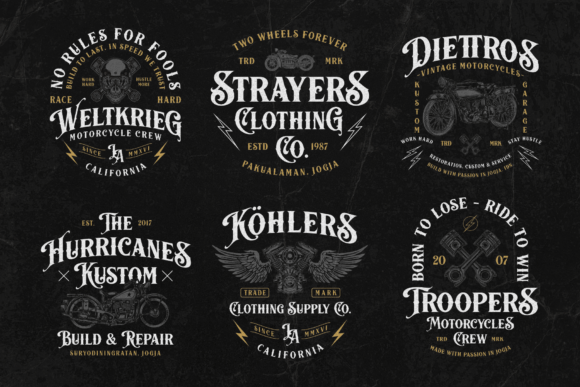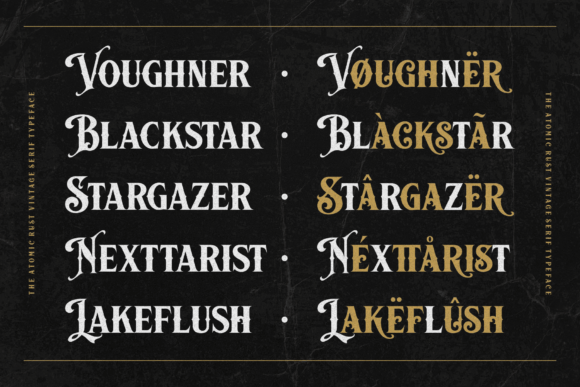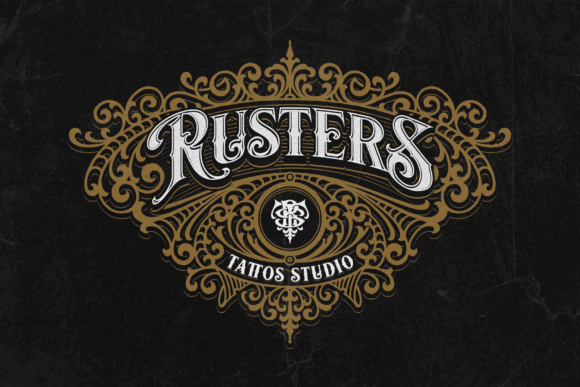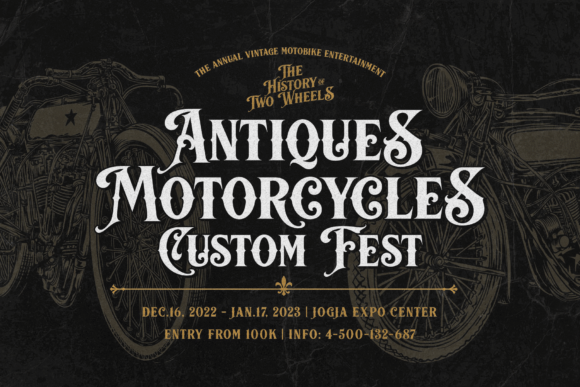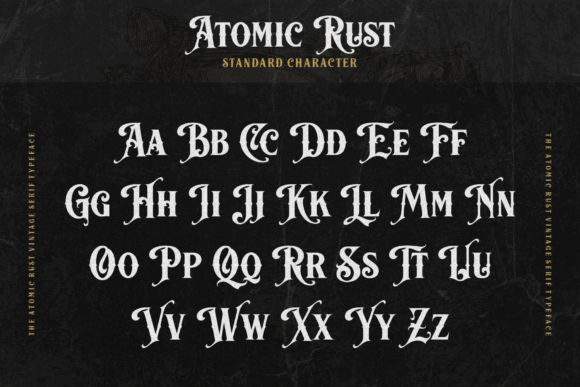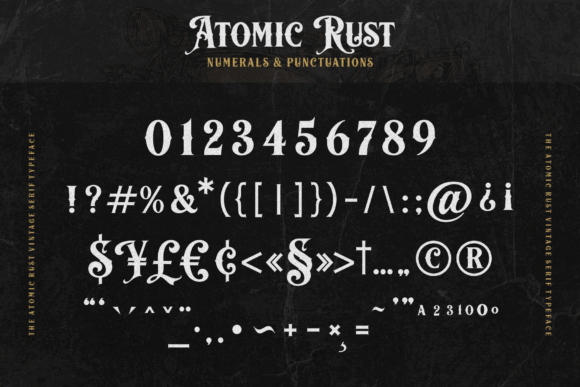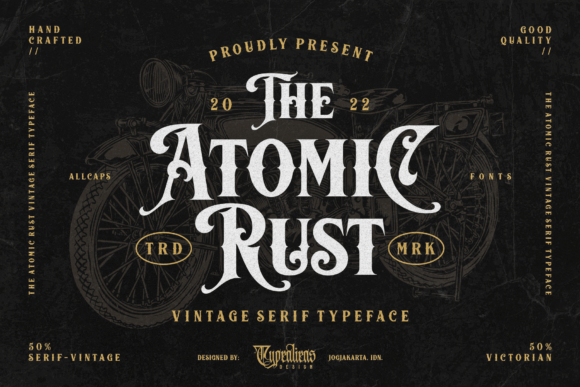
Discover the Timeless Charm of Atomic Rust Font: Elevate Your Designs with a Vintage Victorian Twist
In the realm of typography, certain fonts stand out for their unique ability to transport us to another era. Atomic Rust Font is one such typeface that embodies the essence of the Victorian era, while also catering to the needs of modern designers looking for that classic or retro vibe. This article delves into the world of Atomic Rust Font, exploring its characteristics, uses, and the creative possibilities it offers, especially for projects that scream vintage, such as garage or motorcycle-related badge designs, and even liquor labels adorned with attractive ornaments.
The Essence of Atomic Rust Font
Atomic Rust Font is a meticulously crafted typeface that draws inspiration from the Victorian era, a period known for its opulence, intricate designs, and a sense of industrial and artistic evolution. This font captures the ornate and somewhat industrial feel of that time, translating it into a versatile typeface that can be used in a variety of design projects. Its vintage charm is not just nostalgic but also highly adaptable, making it a favorite among designers who aim to infuse their work with a classic or retro aesthetic.
Key Features of Atomic Rust Font
• Victorian Era Style: The font boasts intricate details and ornate styles reminiscent of the Victorian era, making it perfect for designs that require a touch of classic elegance or industrial charm.
• Versatility: Despite its vintage roots, Atomic Rust Font is incredibly versatile. It can be used in various design projects, from digital graphics to print materials, without losing its appeal.
• Ornamentation: One of the standout features of Atomic Rust Font is its compatibility with attractive ornaments. This makes it an excellent choice for designers looking to add an extra layer of detail and sophistication to their work.
Applications of Atomic Rust Font
The applications of Atomic Rust Font are vast and varied. Its unique blend of vintage charm and versatility makes it suitable for a range of projects. Here are some of the most notable uses:
Garage or Motorcycle-Related Badge Designs
For designers working on badge designs for garages, motorcycle clubs, or related businesses, Atomic Rust Font offers a way to evoke a sense of nostalgia and ruggedness. Its vintage style can instantly lend a classic, timeless feel to badges, making them stand out with a unique character.
Liquor Labels with a Vintage Twist
Liquor labels are another area where Atomic Rust Font shines. The font’s ornate details and vintage charm can add an air of sophistication and nostalgia to liquor packaging. When combined with attractive ornaments, it can create labels that are not only eye-catching but also tell a story of tradition and craftsmanship.
Other Creative Projects
Beyond badge designs and liquor labels, Atomic Rust Font can be used in a myriad of other creative projects. Whether it’s for vintage-themed posters, classic-inspired logos, or even packaging designs that require a touch of the past, this font offers endless possibilities for creative expression.
Tips for Using Atomic Rust Font Effectively
To make the most out of Atomic Rust Font, consider the following tips:
• Pair with Solids: Pairing the font with solid colors or simple backgrounds can help its intricate details stand out.
• Experiment with Sizes: Don’t be afraid to experiment with different sizes. The font’s details can shine in larger sizes, while its elegance can be subtly hinted at in smaller sizes.
• Ornamentation: Take full advantage of the font’s compatibility with ornaments. These can add an extra layer of depth and interest to your designs.
Font Name Atomic Rust Font
Author ilhamtaro
Atomic Rust Font is more than just a typeface; it’s a gateway to a world of vintage charm and creative possibilities. Its unique blend of Victorian era style and versatility makes it an invaluable tool for designers looking to add a classic or retro touch to their work. Whether you’re designing garage badges, motorcycle logos, liquor labels, or any other project that requires a hint of the past, Atomic Rust Font is sure to deliver. Embrace the timeless charm of Atomic Rust Font and elevate your designs to new heights of creativity and sophistication.